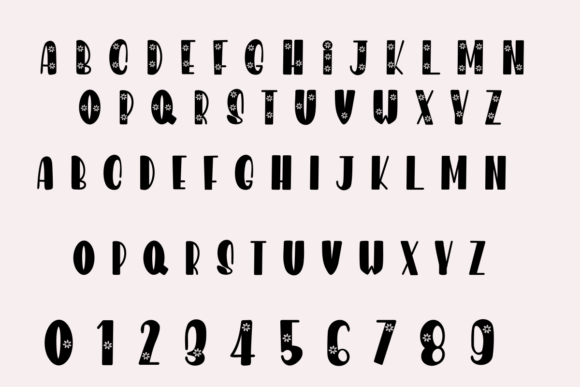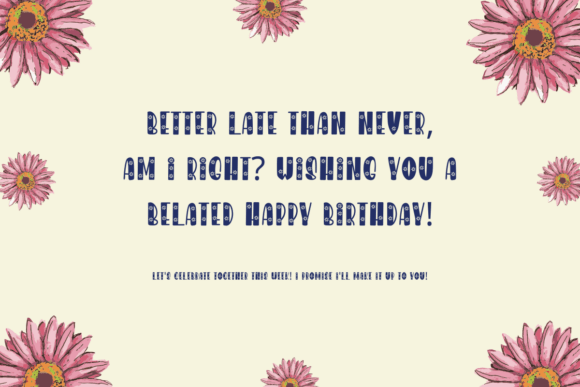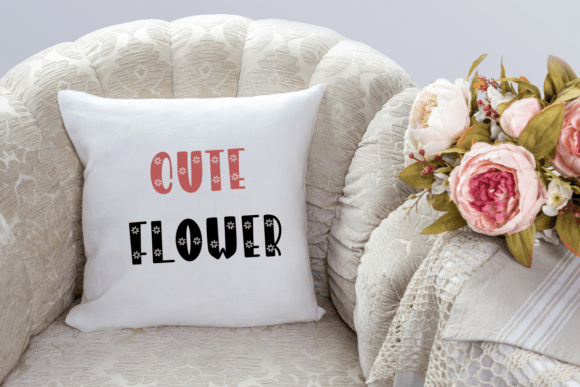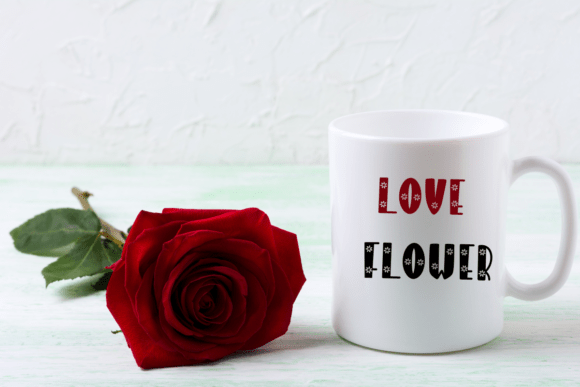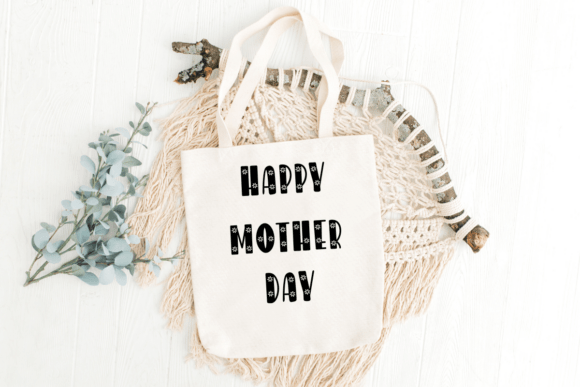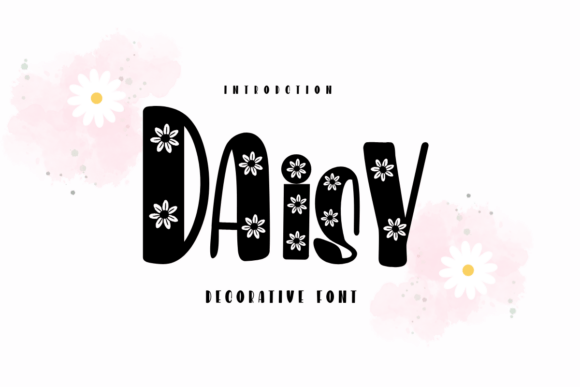
Daisy Font: A Delightful Decorative Font Blooming with Charm
Are you looking for a font that can add a touch of elegance and playfulness to your designs? Look no further than the Daisy Font! This delightful decorative font is blooming with charm, making it perfect for a variety of creative projects. In this article, we’ll explore the features and benefits of the Daisy Font, and how it can elevate your designs to the next level.
What is Daisy Font?
Daisy Font is a unique and whimsical font that is adorned with daisy flower accents. Each letter is carefully crafted to incorporate these charming floral details, making it a standout font for any design project. The font is perfect for spring designs, wedding invites, feminine branding, and playful posters, adding a fresh and floral flair to your creative projects.
Features of Daisy Font
- Delightful Decorative Accents: The Daisy Font features adorable daisy flower accents on each letter, adding a touch of playfulness and elegance to your designs.
- Whimsical and Feminine: The font has a whimsical and feminine feel, making it perfect for designs that require a touch of sweetness and charm.
- Perfect for Spring Designs: The daisy flower accents make the font perfect for spring designs, Easter projects, and Mother’s Day cards.
- Versatile: The Daisy Font can be used for a variety of design projects, including wedding invites, feminine branding, playful posters, and more.
Benefits of Using Daisy Font
Using the Daisy Font in your design projects can have numerous benefits. Here are a few:
- Adds a Touch of Elegance: The Daisy Font adds a touch of elegance and sophistication to your designs, making them stand out from the crowd.
- Creates a Playful Feel: The whimsical and playful nature of the font creates a fun and lively feel, perfect for designs that require a touch of personality.
- Increases Brand Recognition: Using a unique and recognizable font like Daisy Font can help increase brand recognition and create a consistent visual identity.
Design Ideas Using Daisy Font
The Daisy Font is versatile and can be used in a variety of design projects. Here are a few ideas to get you started:
- Wedding Invitations: Use the Daisy Font to create beautiful and elegant wedding invitations that set the tone for the special day.
- Spring Posters: Create playful and colorful posters for spring events or promotions using the Daisy Font.
- Feminine Branding: Use the Daisy Font to create a consistent visual identity for feminine brands, such as beauty or fashion companies.
- Easter and Mother’s Day Cards: Use the Daisy Font to create adorable Easter and Mother’s Day cards that are sure to delight.
In conclusion, the Daisy Font is a delightful decorative font that can add a touch of elegance and playfulness to your designs. With its whimsical and feminine feel, it’s perfect for spring designs, wedding invites, feminine branding, and playful posters. Whether you’re a designer or crafter, the Daisy Font is a great addition to your font collection. So why not give it a try and see how it can elevate your designs to the next level?